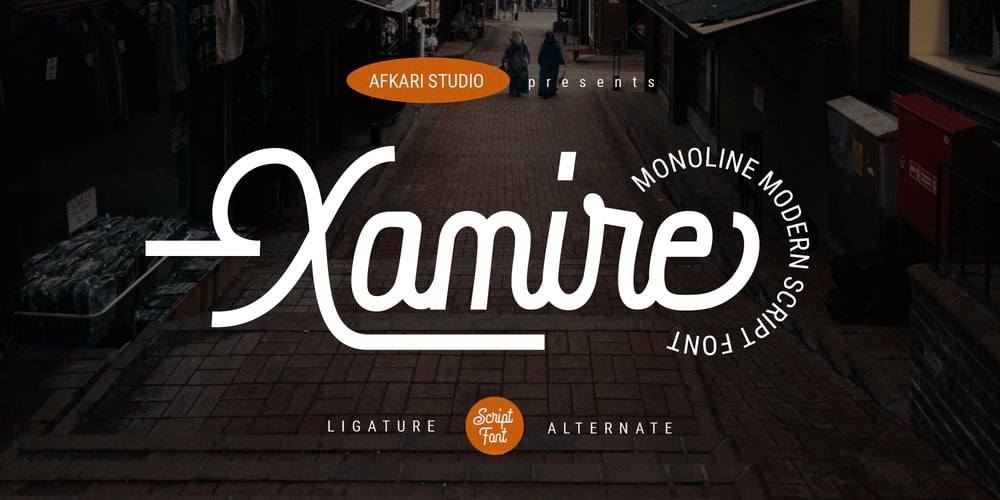
Xamire Monoline Font Family was designed by Musthafa Kamal Emje and published by Afkari Studio. Xamire Monoline contains 1 styles and family package options. Introducing Xamire, the epitome of elegance and modernity in typography. This monoline script font redefines sophistication, blending sleekness with a touch of artistic flair. Its seamless strokes and graceful curves exude a timeless charm, perfect for elevating any design project.Crafted with precision and attention to detail, Xamire offers versatility that transcends traditional boundaries. Whether used for branding, invitations, advertising, or editorial design, its clean lines and effortless flow add a touch of refinement to any visual creation.Embrace the allure of Xamire and unlock a world of creative possibilities. With its extensive character set and seamless connectivity, this font is designed to empower your designs, captivating audiences and leaving a lasting impression. Elevate your projects with Xamire – where modernity meets sophistication in every stroke.Highlighted Features:– Uppercase, Lowercase, Number, and Punctuation– Special alternates and ligatures– Works on PC & Mac– Simple installations– Accessible in Adobe Illustrator, Adobe Photoshop, Adobe InDesign, and even work on Microsoft Word– Fully accessible without additional design software.– Mültîlíñgúãl Sùppört for; ä ö ü Ä Ö Ü ß ¿ ¡Hope you enjoy our font and this font is a useful font for your projects!